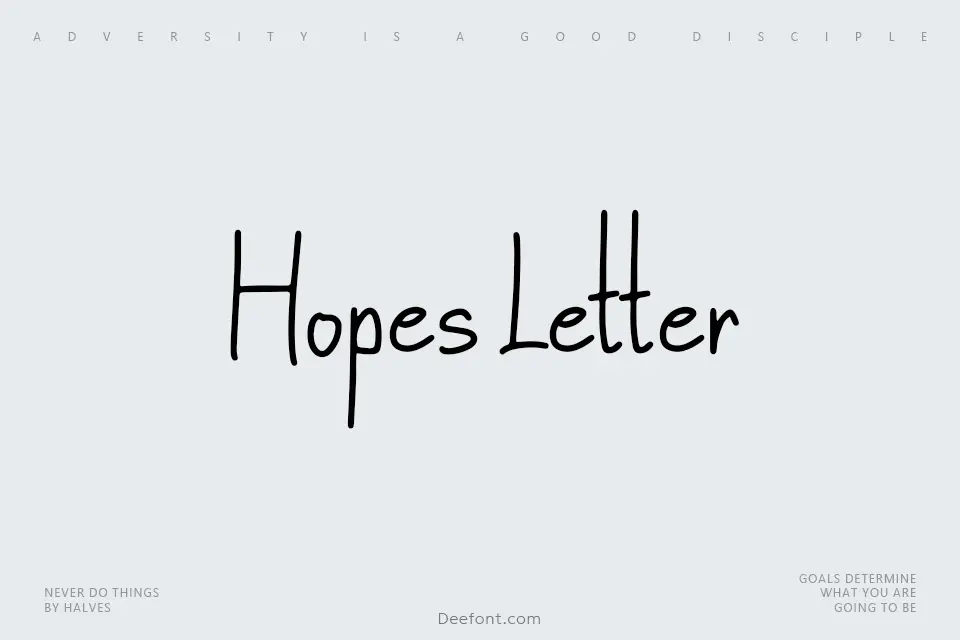
Hopes Letter Font
Hopes Letter Font is a natural handwritten typeface characterized by its casual elegance and authentic, flowing script. Designed to mimic the organic variations of hand-drawn lettering, it features subtle imperfections and uneven strokes that convey warmth and approachability. This versatile font supports 35 languages, making it suitable for diverse creative applications such as wedding invitations, logo designs, social media graphics, product packaging, and personalized stationery.
The font’s relaxed yet refined style balances readability with artistic flair, ideal for projects requiring a human touch. Its lightweight file size ensures easy integration into design software like Adobe Photoshop and Canva, offering flexibility for both digital and print media.